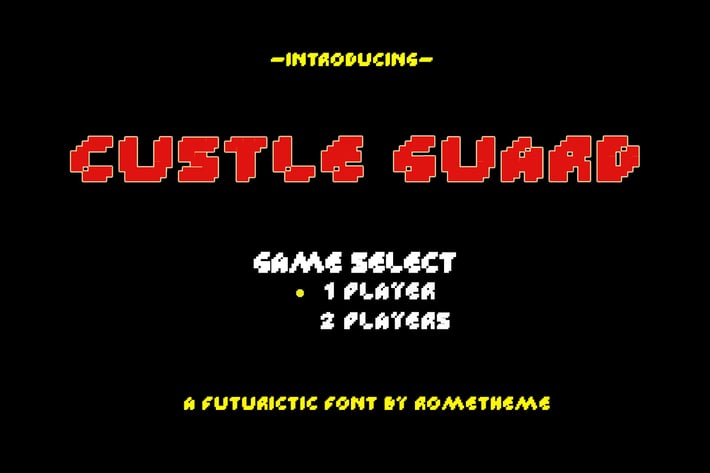
Custle Guard - Retro Bitmap Font
Custle Guard is a Retro bitmap typeface. This font perfect for pixel art, and 8bit games.
Custle Guard Font is the best choice for your professional design projects, including : logo, poster design,
t-shirt, headline, flyer, cd cover album, quotes, business card, branding, magazines, social media, advertisements,
product designs, or something that need modern or futuristic looks.
Highlight :
- The perfect font choice for powerful projects - watermarks, signatures, photography, logos, business cards, quotes,
album covers.